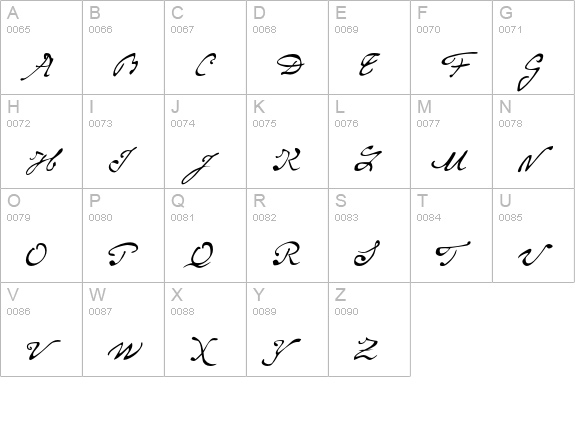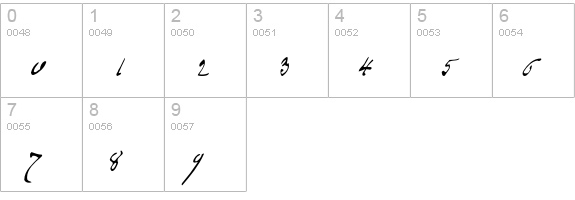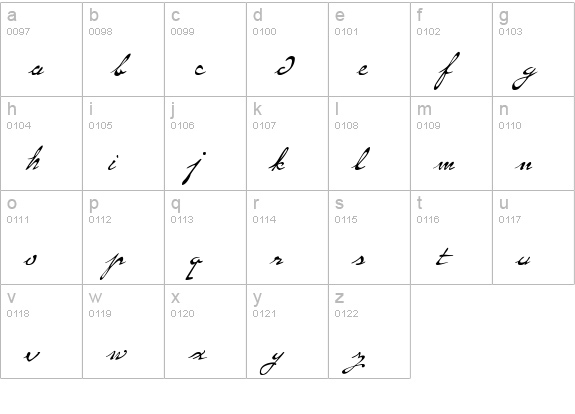
P22Monet-Regular Font Details
P22Monet-Regular is the standard, neutral variant in the P22Monet typeface family \xE2\x80\x94 well suited to general body text, paragraphs, and standard typographic work.
P22Monet-Regular is a stunning font that effortlessly captures the essence of Claude Monet's brushstrokes. With its fluid lines and delicate curves, this typeface brings to life the beauty and charm of Monet's iconic Impressionist paintings. Each character is meticulously crafted to emulate the artist's unique style, making it the perfect choice for any project that seeks to evoke a sense of artistic flair and creativity. The P22Monet-Regular font is not only visually striking but also incredibly versatile. From elegant invitations and sophisticated branding to captivating headlines and eye-catching posters, this font adapts seamlessly to any design concept. Its readability and legibility ensure that your message will be conveyed clearly and effectively, while its artistic nuances add a touch of sophistication and elegance. What makes P22Monet-Regular even more remarkable is that it is freely available to download at FontsMarket.com. This means that you can enhance your creative projects with this exquisite font without any cost. Whether you're a professional designer, a passionate hobbyist, or simply someone who appreciates the beauty of typography, P22Monet-Regular is a valuable asset that will elevate your work to new heights. With its timeless appeal and artistic charm, P22Monet-Regular is a must-have font for anyone looking to add a touch of elegance and creativity to their designs. Download it for free at FontsMarket.com and let your imagination run wild as you explore the endless possibilities that this extraordinary font has to offer.